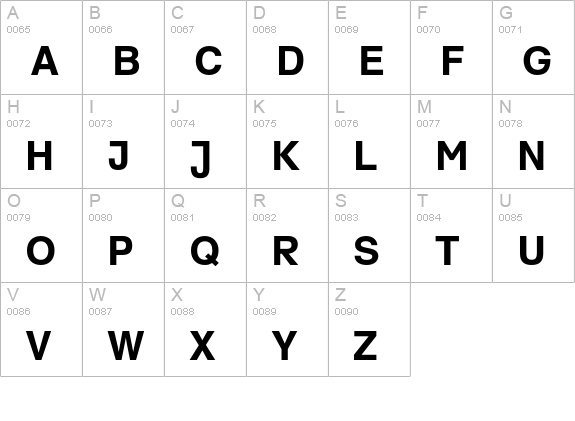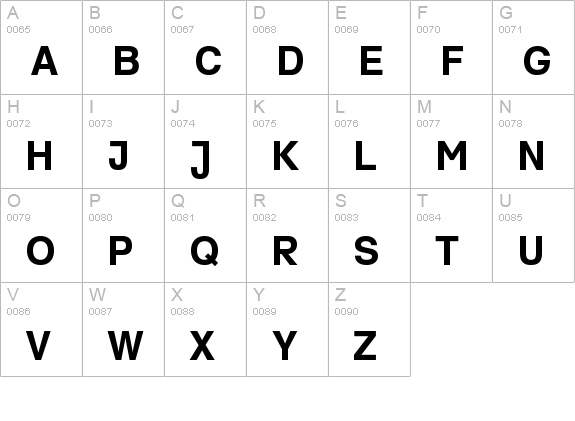
SchulbuchSued-Fett Font Details
SchulbuchSued-Fett is a stunning font that exudes elegance and sophistication. With its bold and powerful strokes, this font is perfect for creating eye-catching headlines and titles. The unique design of SchulbuchSued-Fett makes it stand out from other fonts, adding a touch of uniqueness to any project. One of the best things about SchulbuchSued-Fett is that it is free! Yes, you read that right. This amazing font is freely available to download at FontsMarket.com. Now you can enhance your designs without breaking the bank. Whether you're working on a personal project or a professional one, SchulbuchSued-Fett is a fantastic choice that won't cost you a dime. The versatility of SchulbuchSued-Fett is another reason why it's a must-have font. It can be used in a variety of design projects, from posters and flyers to logos and branding materials. Its bold and impactful presence will grab the attention of your audience and leave a lasting impression. Not only does SchulbuchSued-Fett offer a visually stunning aesthetic, but it also ensures legibility and readability. The carefully crafted letterforms and well-balanced proportions make it easy to read even at smaller sizes. This makes it an ideal choice for both print and digital applications. So why wait? Take advantage of this amazing opportunity to download SchulbuchSued-Fett for free at FontsMarket.com. Elevate your designs with this bold and beautiful font that is sure to make a statement. Download it today and let your creativity soar!